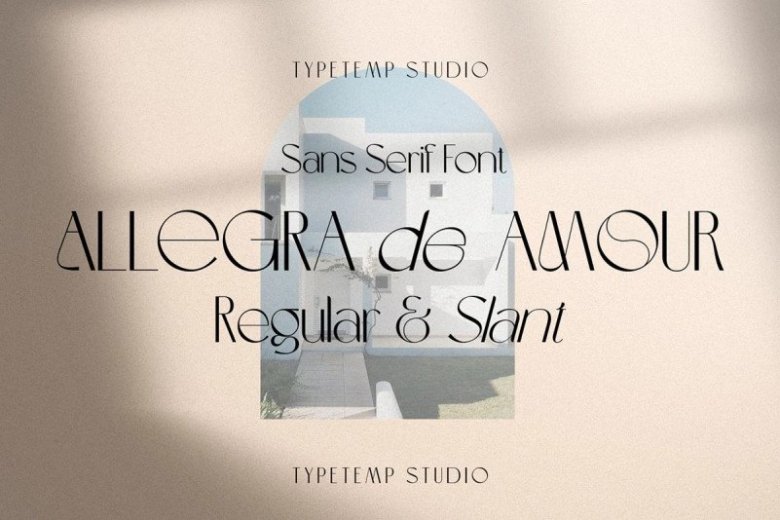
Allegra De Amour Font
Allegra de Amour Font is a sans font has unique and sleek letterform, make it great to be used for modern and minimalistic design theme. Access your OpenType features to access the large selection of alternate letters and ligatures, select the letters you like from the large variety to get the display font you like.
Perfect for editorial projects, Logo design, Clothing Branding, product packaging, magazine headers, or simply as a stylish text overlay to any background image.